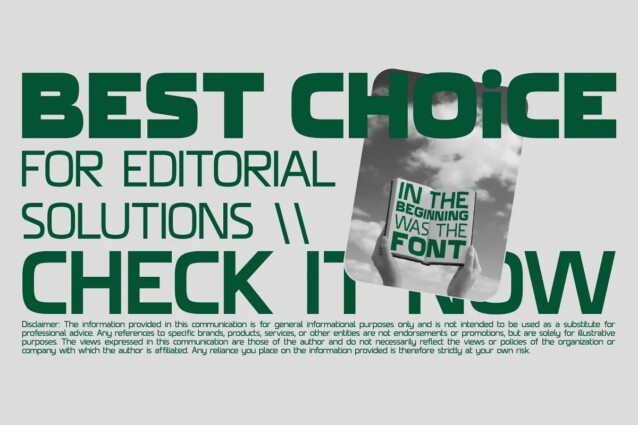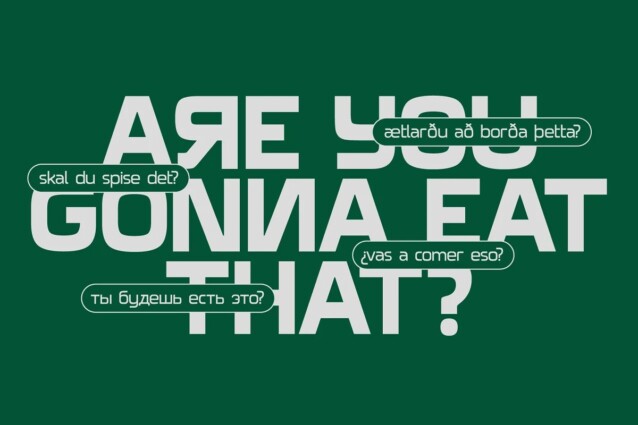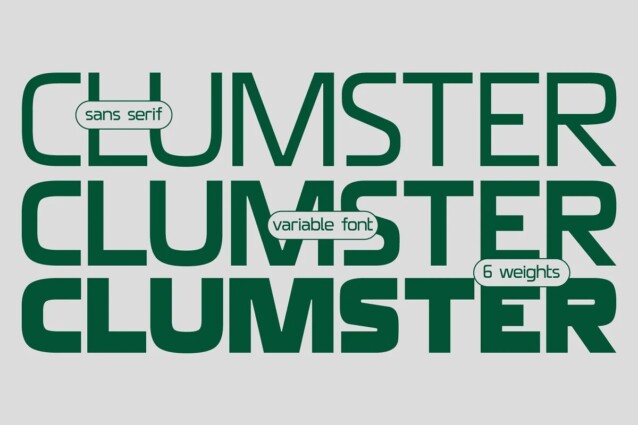
SK Clumster Sans Font
SK Clumster Sans Font is a sans serif font family designed with a modern and vintage feel. Its structure is enlivened by an innovative combination of geometric and organic shapes that transform the familiar letter pattern. SK Clumster Sans creates a unique visual impression through a combination of shapes, a large symbolic and weights set, in addition to lively and dynamic angles and lines. The font is suitable for creating original design works that reflect the creative potential of the author and his bold experiments in the field of design.